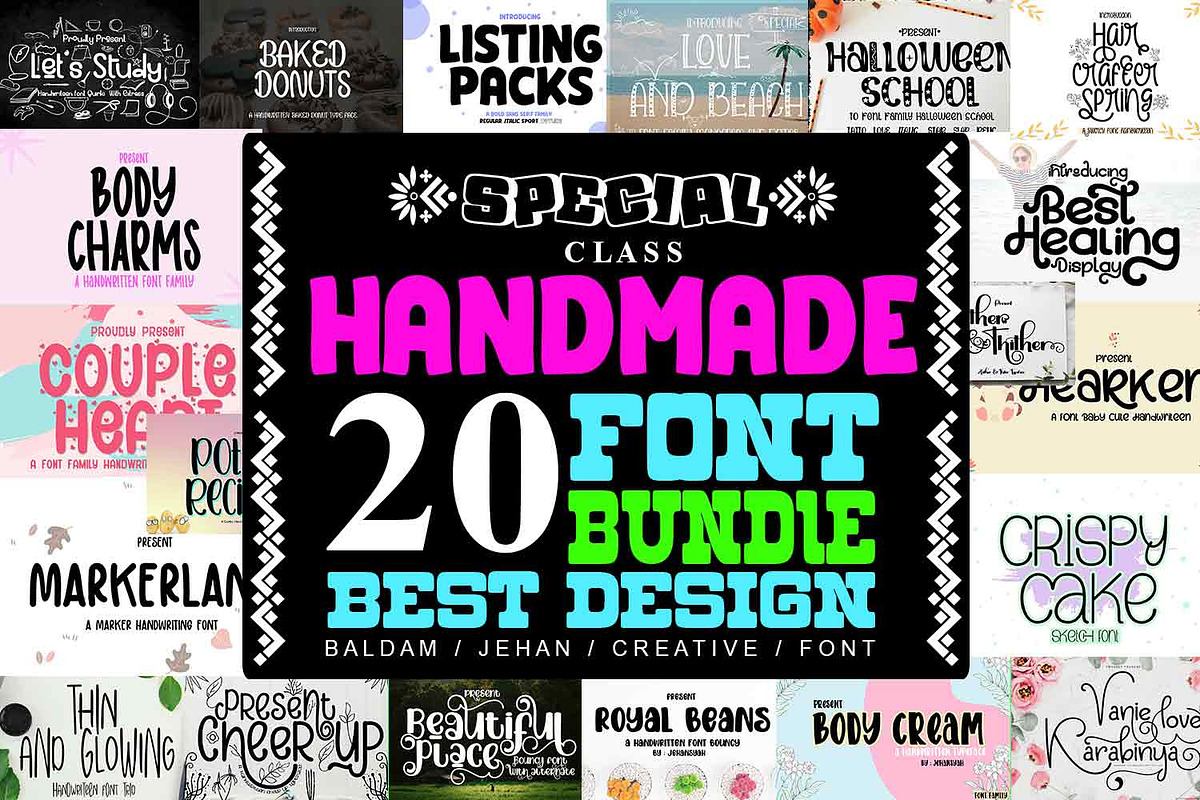
Special Collection 20 Font Bundle Free Download
Upgrade your design toolkit with Special Collection 20 Font Bundle Free Download — a premium assortment of typefaces carefully crafted to meet every creative need. From elegant script fonts to modern sans-serifs, playful handwritten styles to bold display fonts, this bundle has it all.
Perfect for branding, logos, posters, social media content, packaging, invitations, and everything in between, the Special Collection gives designers ultimate flexibility and inspiration. Each font comes with full character sets, punctuation, numerals, and multilingual support, allowing you to create polished, versatile, and professional-grade designs.